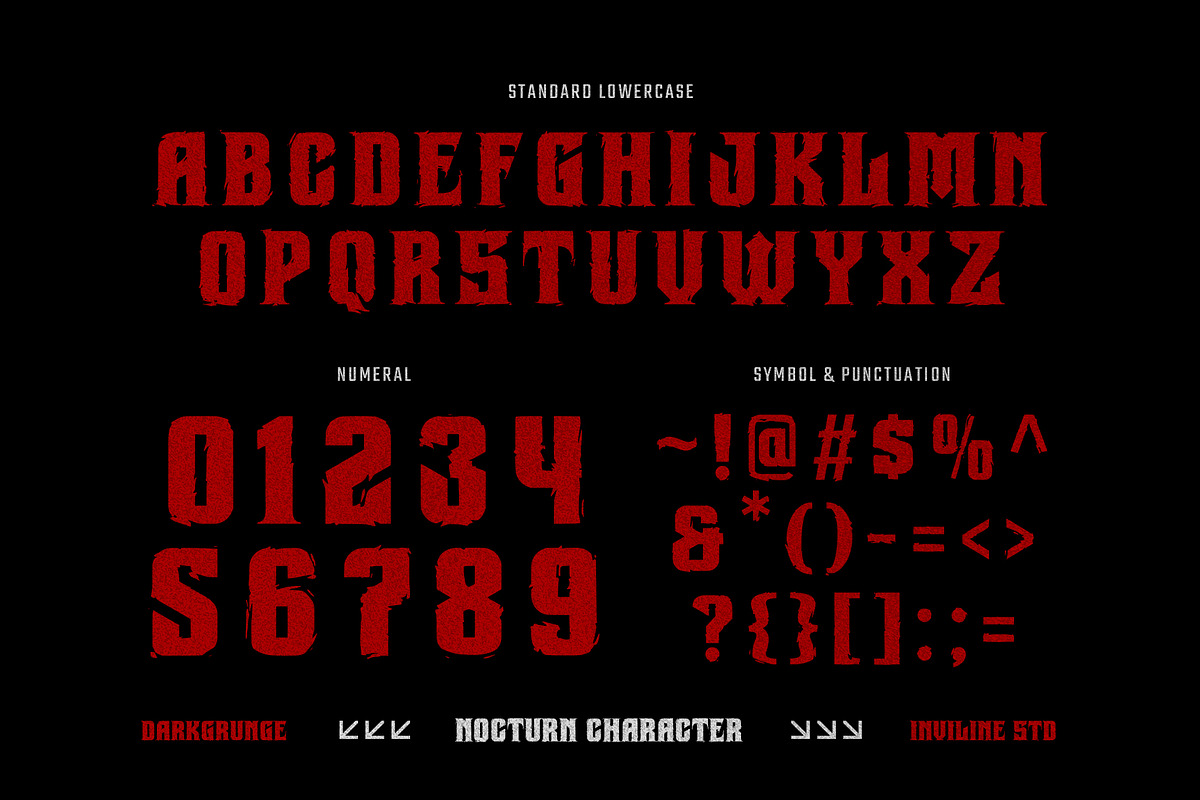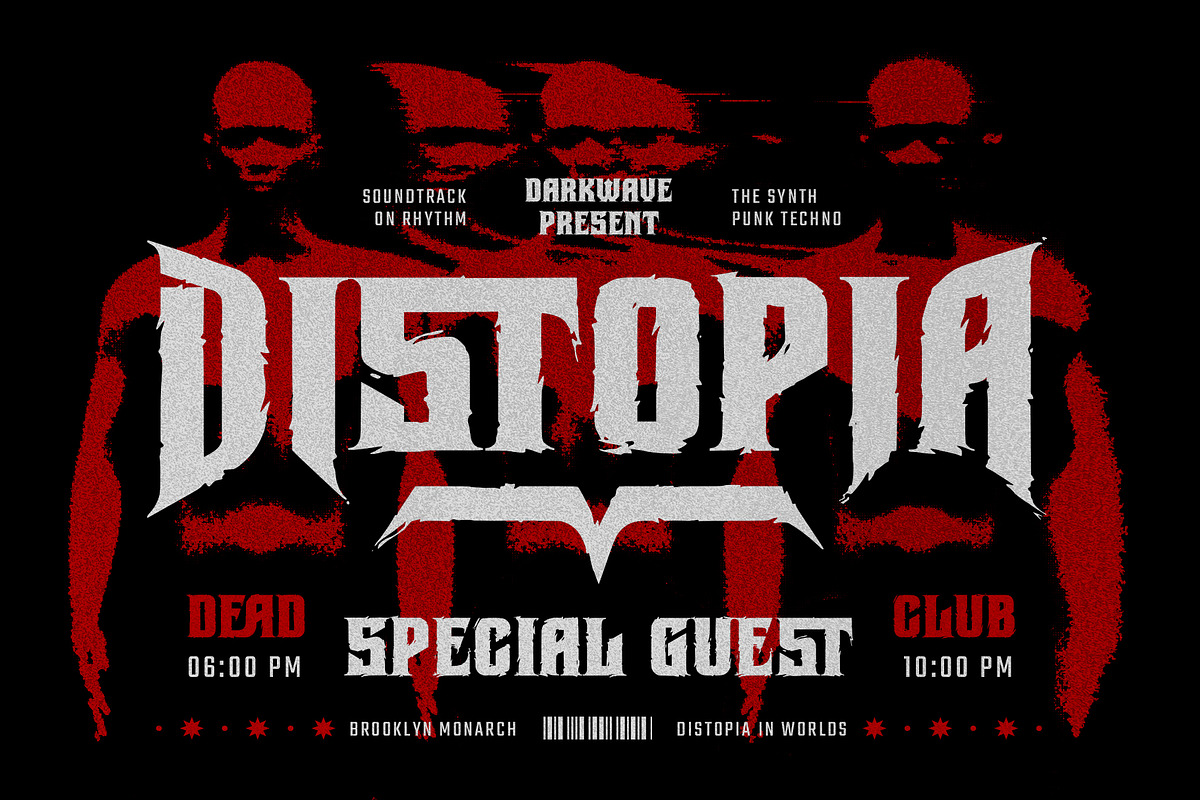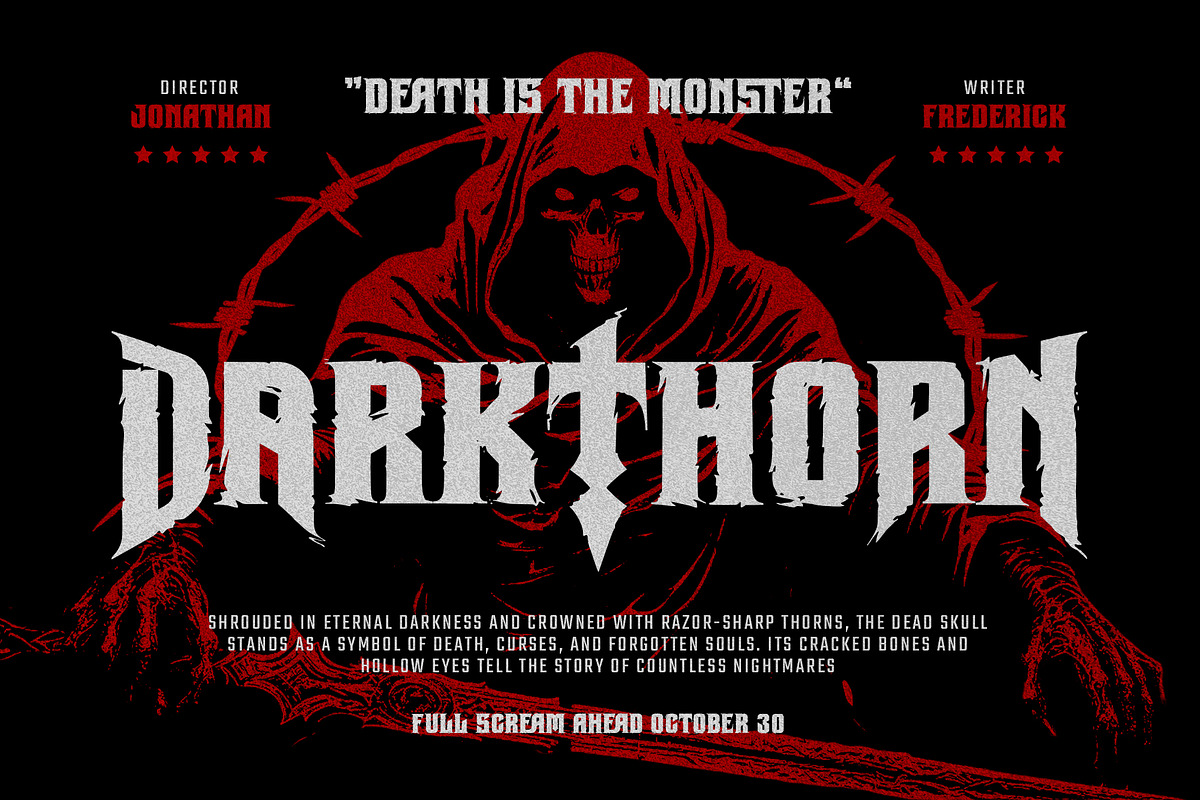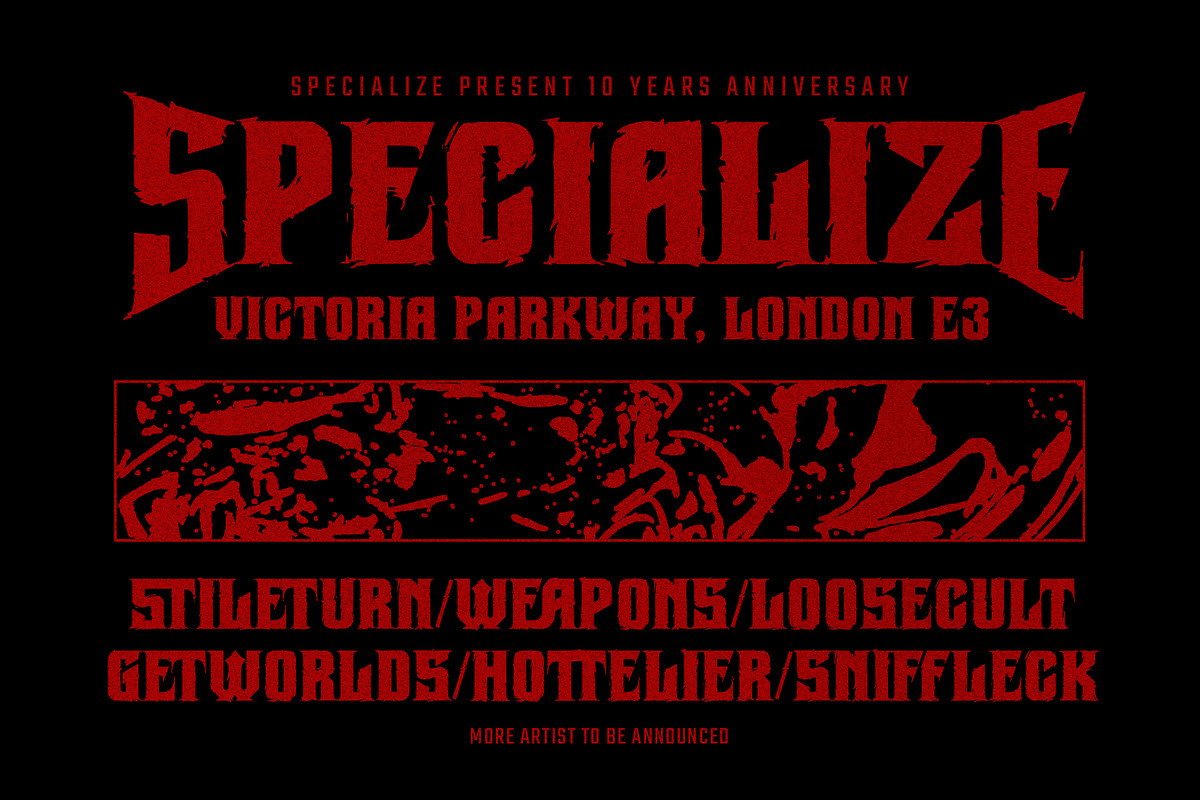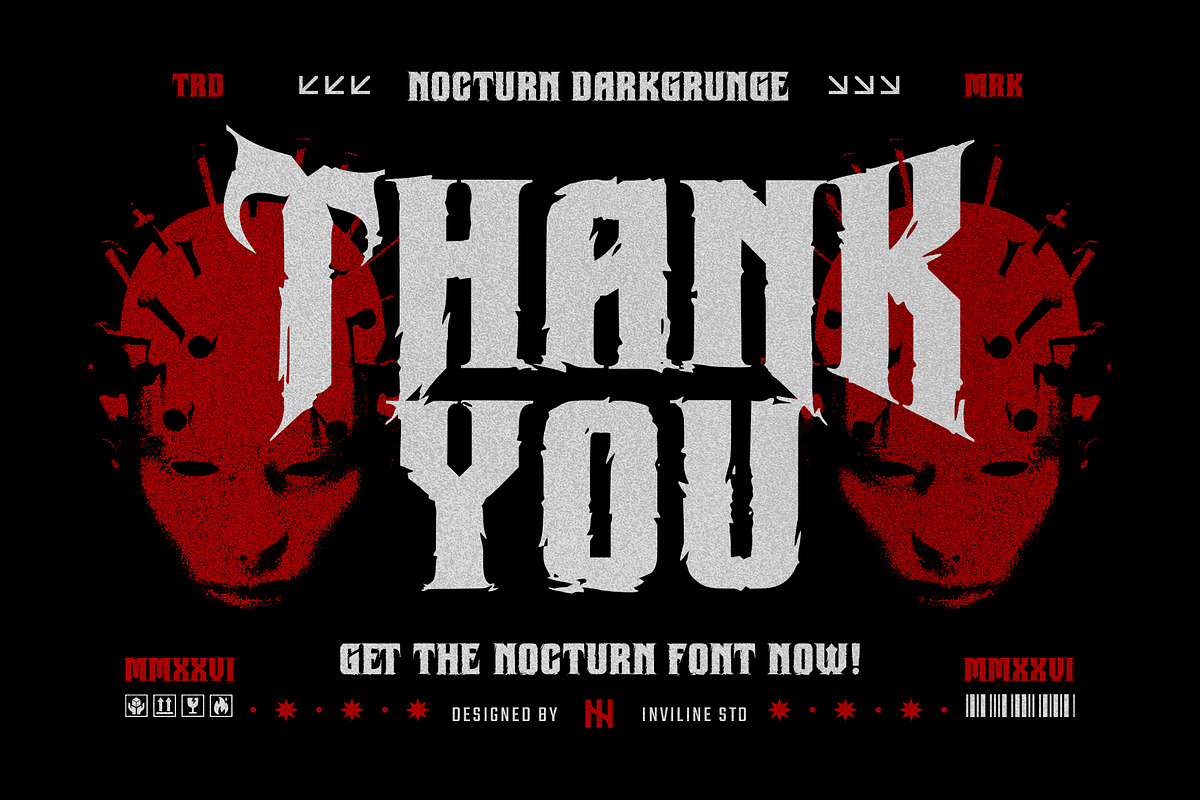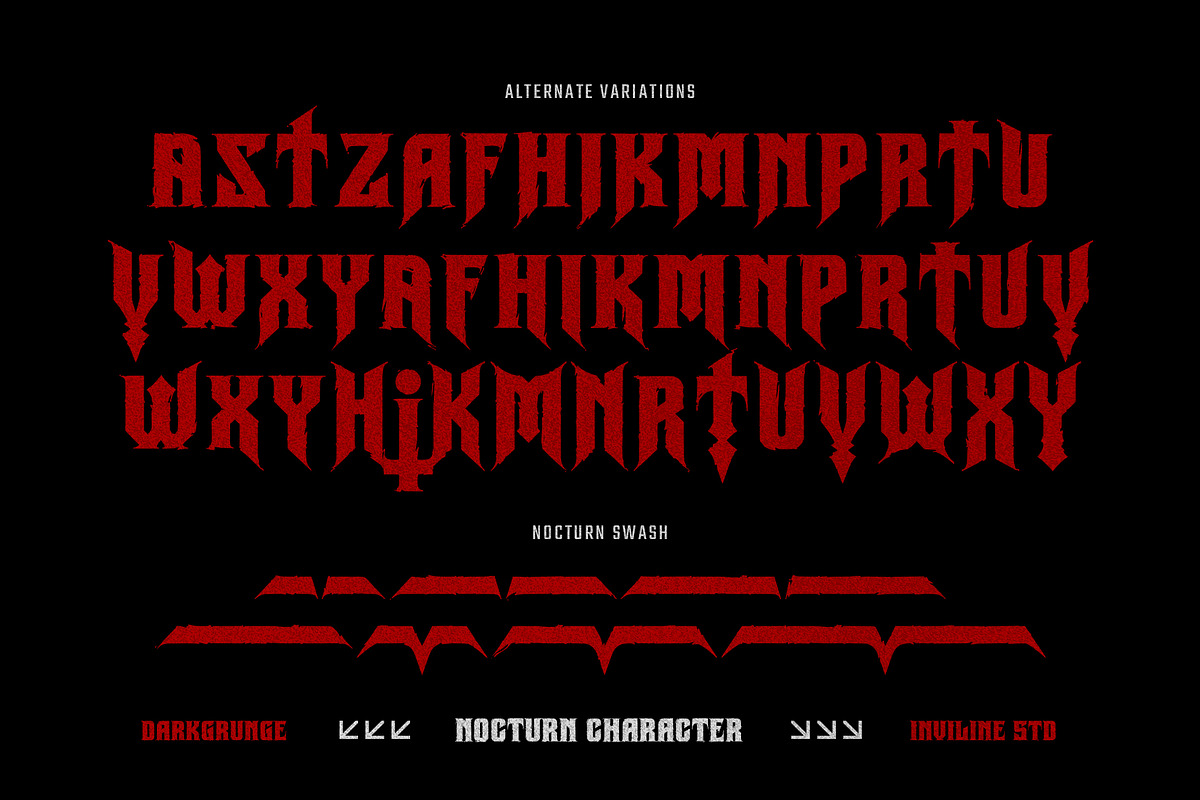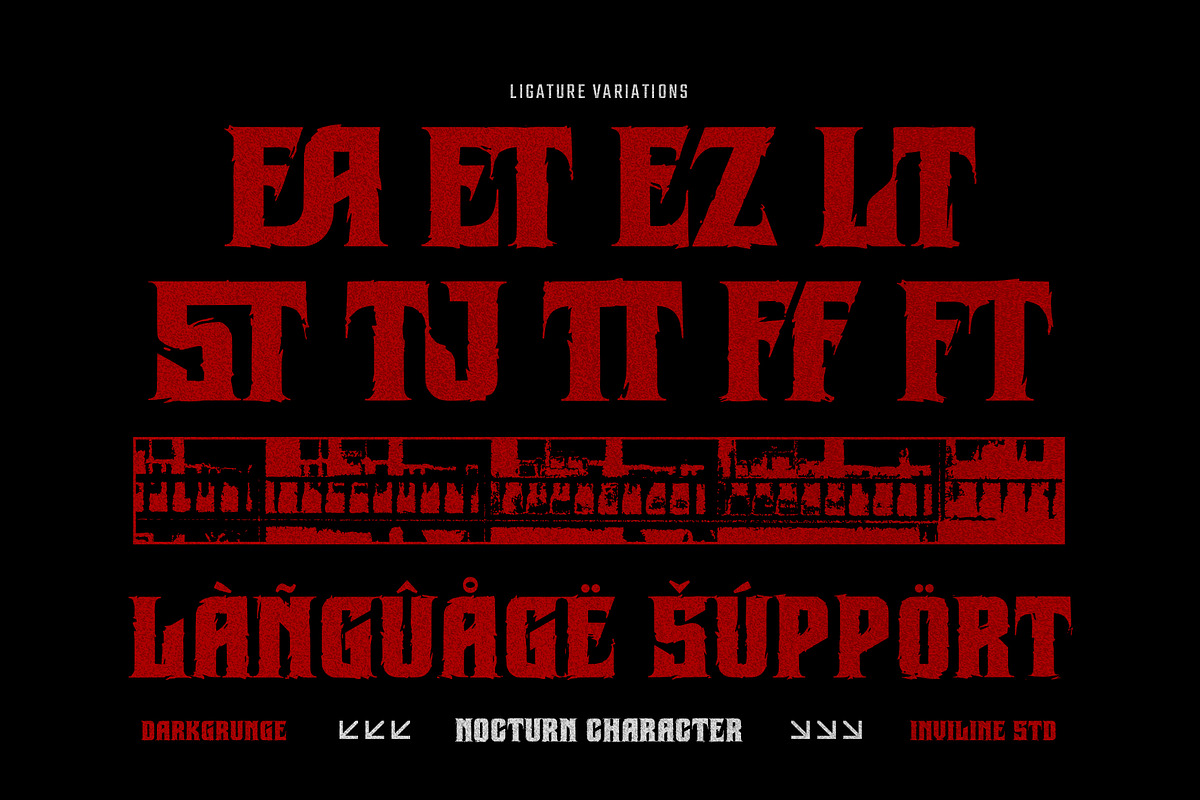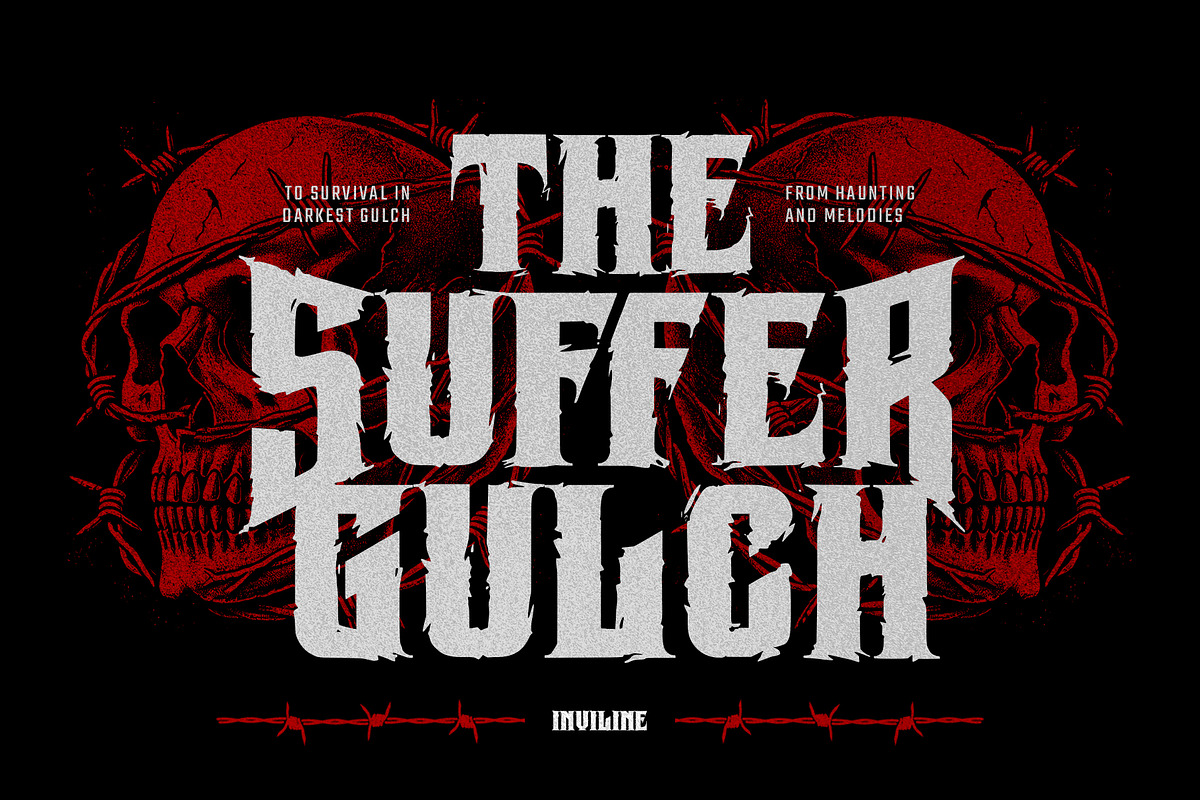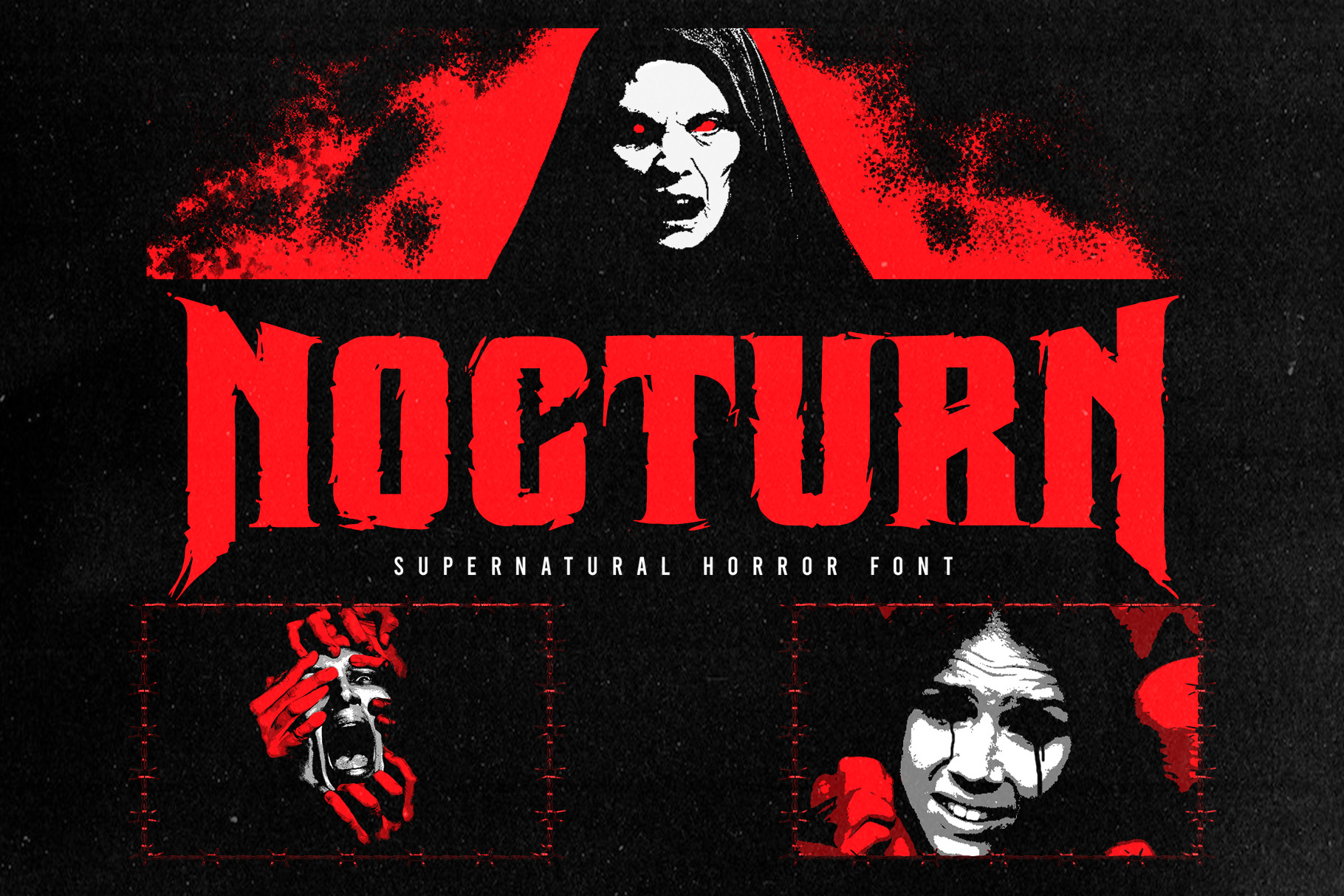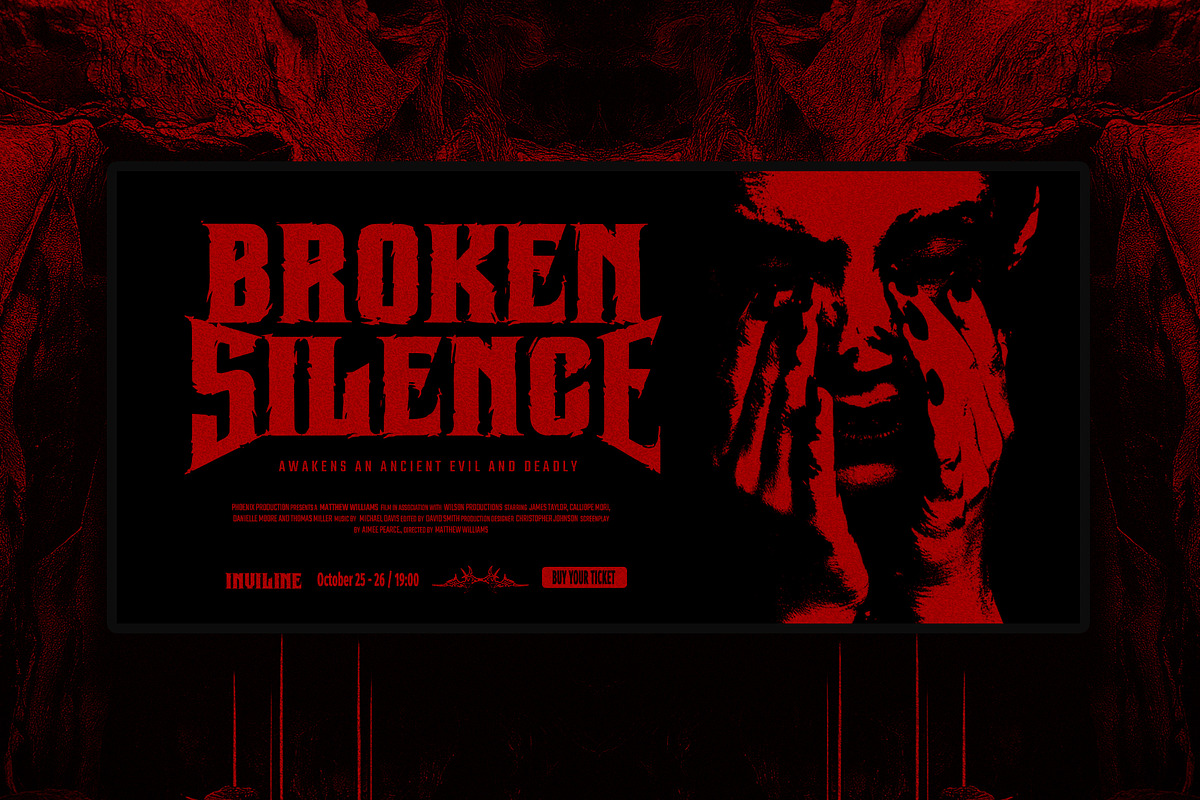
Nocturn - Display Grunge Font
Nocturn – Display Grunge Font
Step into the shadows with Nocturn, a supernatural display font that merges gothic intensity with raw grunge textures. Designed for titles that haunt and visuals that linger, Nocturn evokes the eerie aesthetics of classic horror cinema and occult symbolism. Every character is crafted with sharp, jagged edges and unsettling asymmetry, giving your words a terrifying presence on posters, movie titles, album covers, or Halloween merchandise.
Uppercase & Lowercase Letters
Alternates with ritualistic glyphs
Numbers, Punctuation, & Symbols
Horror Film Posters & Titles
Paranormal Book Covers
Dark Music Branding
Occult Packaging Design
Halloween Promotions